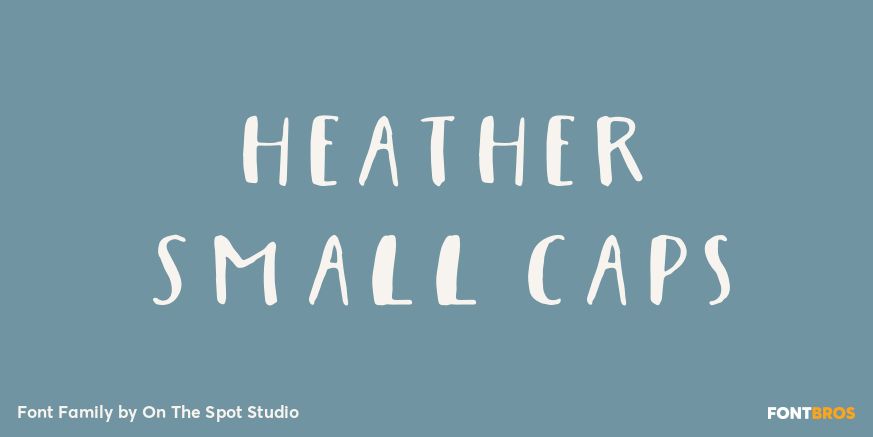
Heather Small Caps
About Heather Small Caps
Hand dipped ink gives this font the feel of a handlettered note with its different variations of weight where some ink is thicker than the rest. A perfect match to the calligraphy style lettering fonts out there!